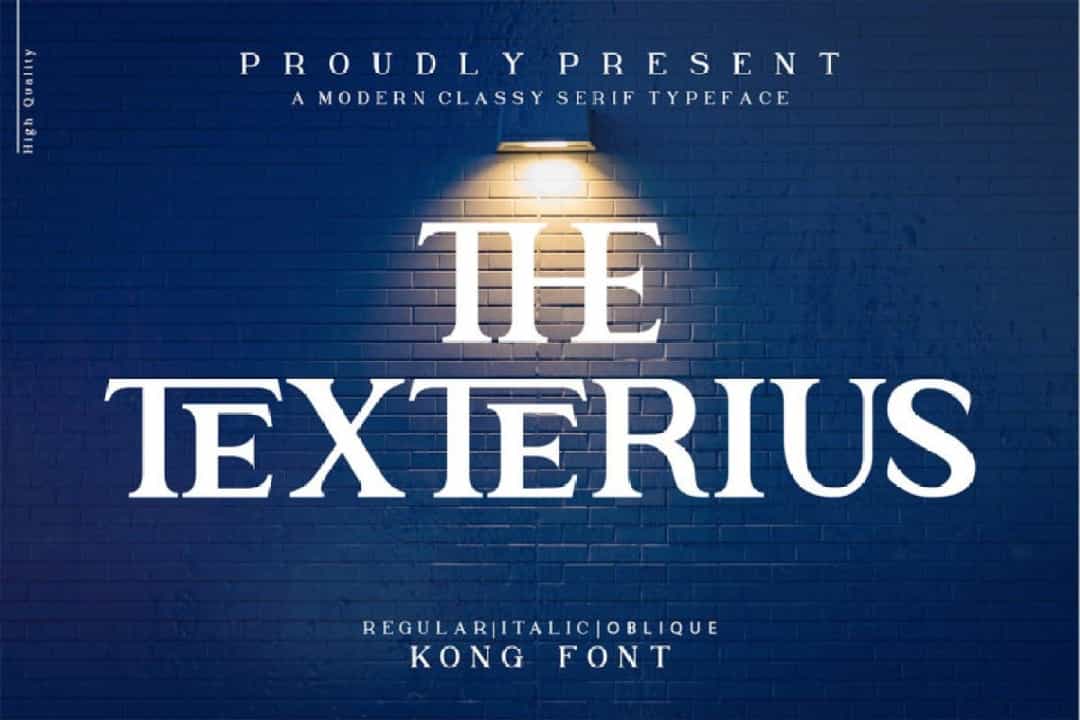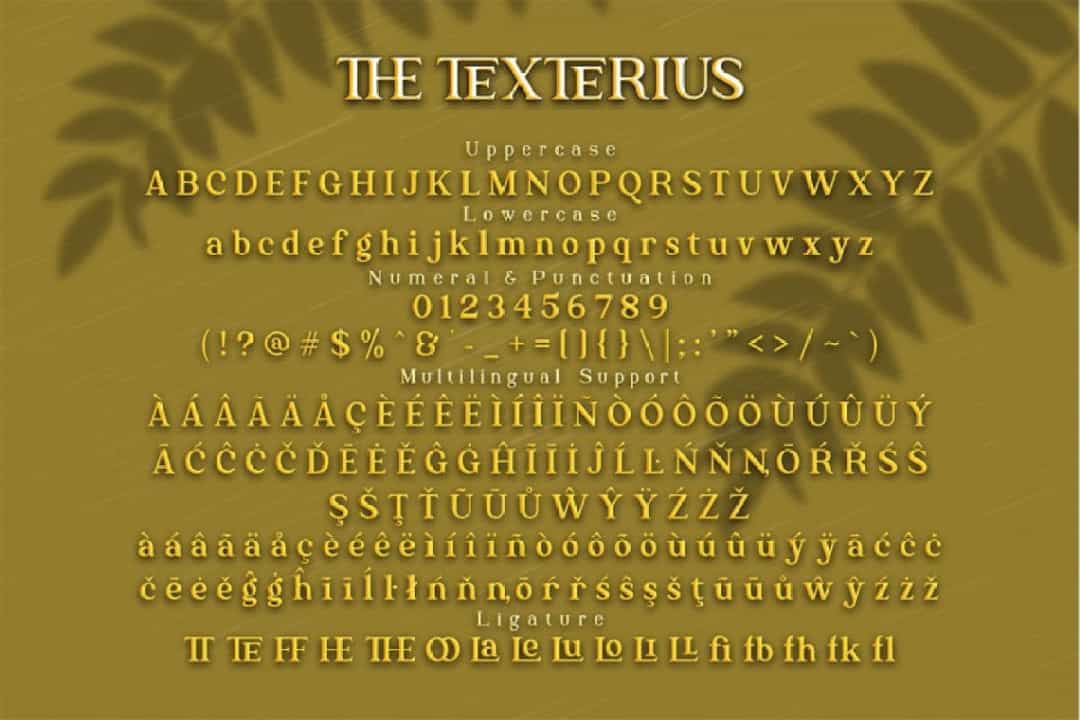
Texterius Typeface is an elegant criminal. The elegant and royal typeface gives a very elegant touch to any style; as for its conception it is directly linked to the Art Deco period but remains very modern and stylish. This serif font has a variety of options for the text such as numerous stylistic sets and ligatures making it versatile.